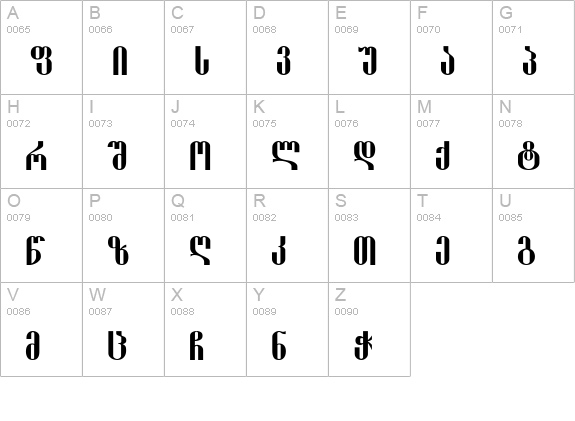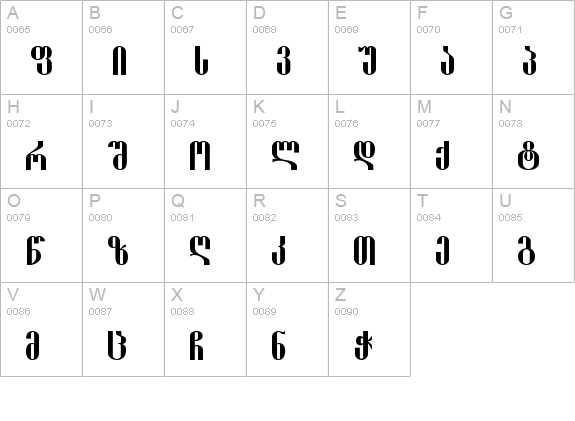
Shemokhmedy-ITV Font Details
Shemokhmedy-ITV font is a modern and stylish typeface that is perfect for adding a touch of elegance and sophistication to any design project. The font features clean lines and smooth curves, making it easy to read and visually appealing. With its versatile design, Shemokhmedy-ITV font is suitable for a wide range of applications, including branding, advertising, packaging, and more. Whether you're creating a logo, designing a website, or crafting a poster, this font will make your text stand out and grab attention. One of the best things about Shemokhmedy-ITV font is that it is free! You can freely download this font at FontsMarket.com, a trusted online source for high-quality fonts. By making this font available for free, the creators of Shemokhmedy-ITV are allowing designers and creatives to access a professional and stylish typeface without any cost. The clean and modern design of Shemokhmedy-ITV font makes it a great choice for both print and digital projects. Its legibility and versatility make it suitable for both small and large text sizes, ensuring that your message is clearly communicated to your audience. In addition to its aesthetic appeal, Shemokhmedy-ITV font is also easy to work with. It is available in multiple formats, including TTF and OTF, making it compatible with a variety of design software and platforms. Whether you're a professional designer or a hobbyist, you'll find that using Shemokhmedy-ITV font is a breeze. Overall, Shemokhmedy-ITV font is a must-have font for anyone looking to add a touch of sophistication and elegance to their design projects. Its modern and clean design, combined with its availability as a free download at FontsMarket.com, makes it a valuable asset for any designer. So go ahead and give your designs a professional edge with Shemokhmedy-ITV font.